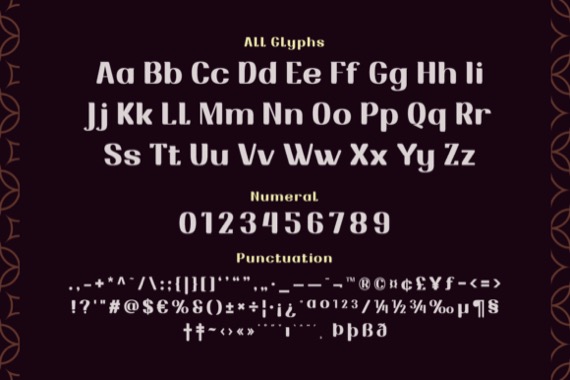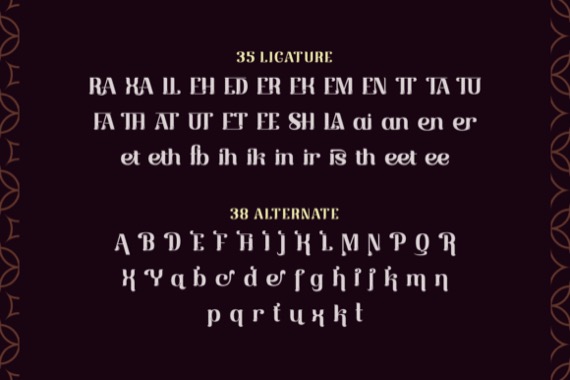
Introducing Piskote Font from Twinletter, it is an eye-catching display font that brings a touch of elegance to any of your projects. With a theme that is relaxed but still exudes elegance, Piskote is the perfect solution for creating designs that catch attention and give off a signature charm.
Piskote’s excellent features will make your designs even more special. With the available ligatures and alternates, you can combine beautiful characters and bring interesting variations to your typography designs.
With a relaxed yet elegant style, Piskote adds a special touch to each of your projects. Let this font be your creative partner in creating stunning and stunning designs.
Piskote Display Serif Font